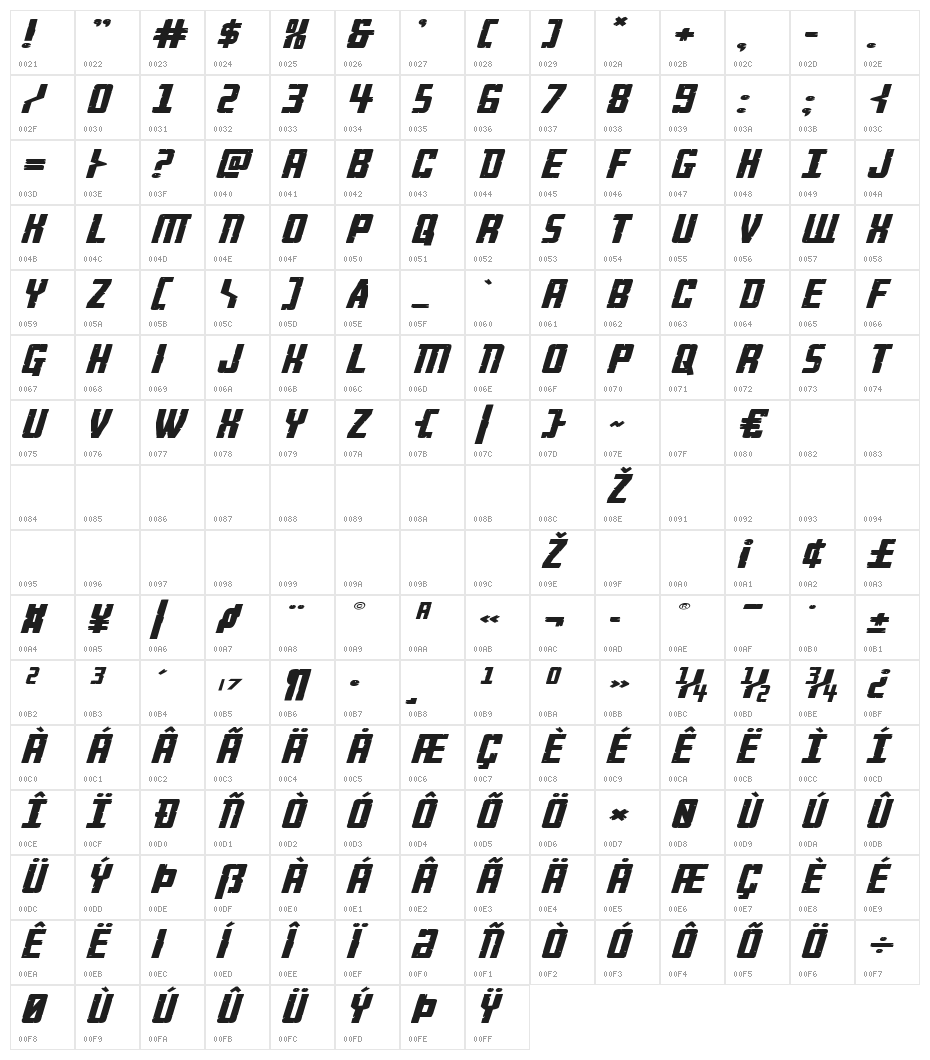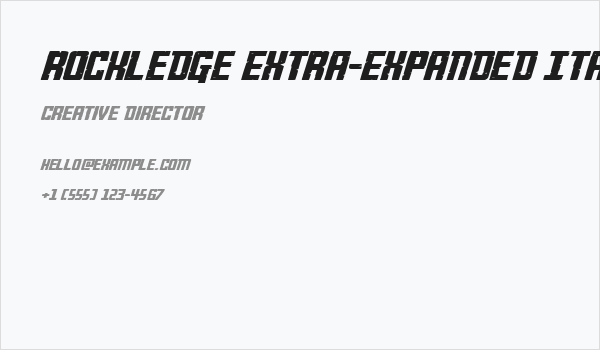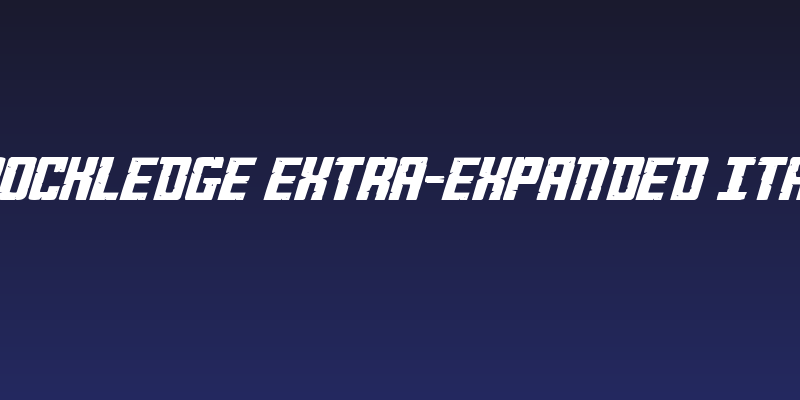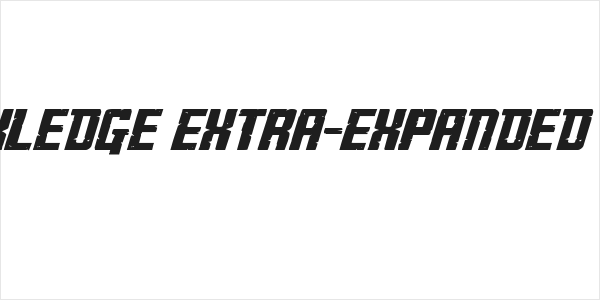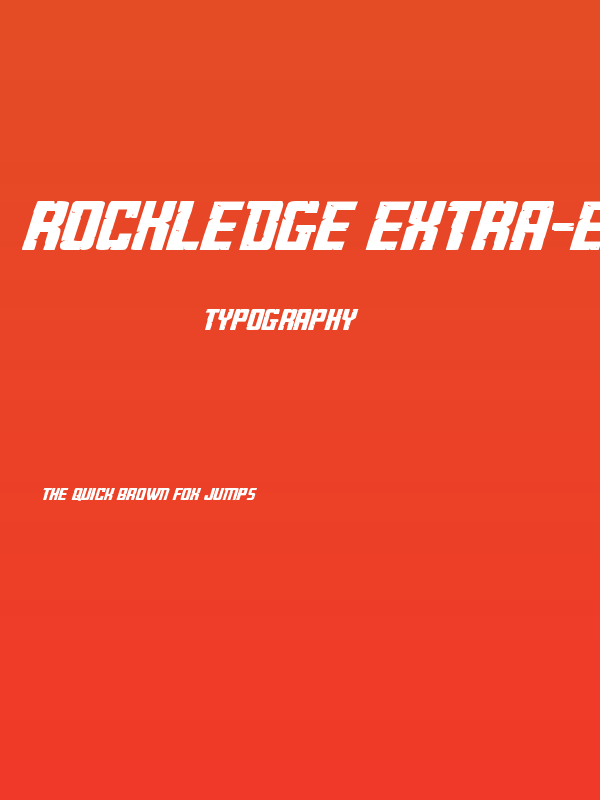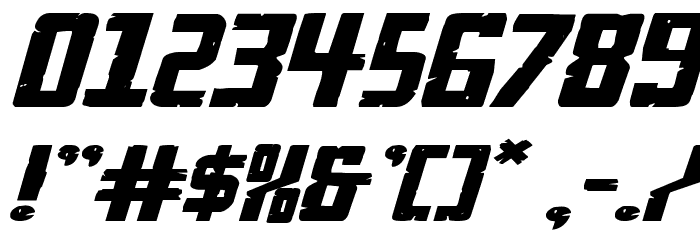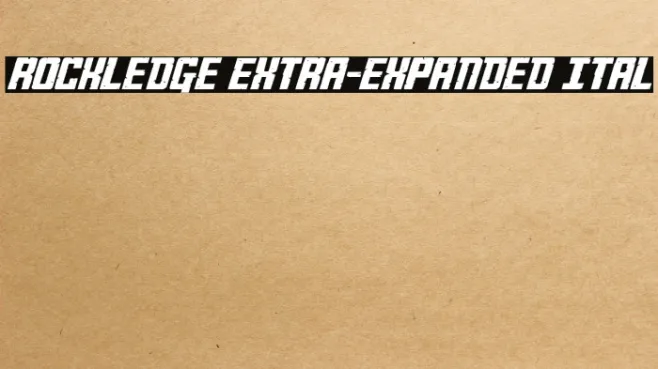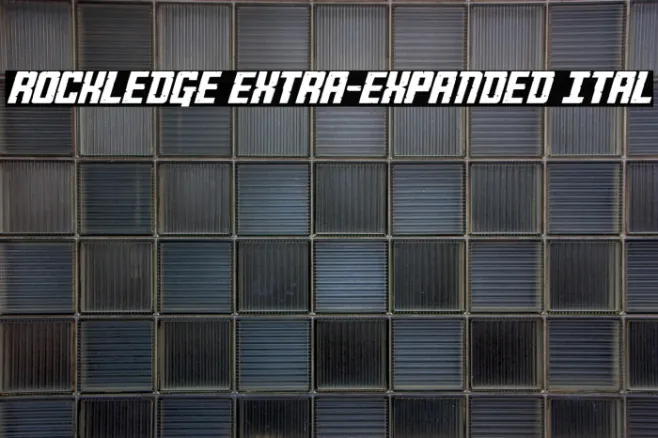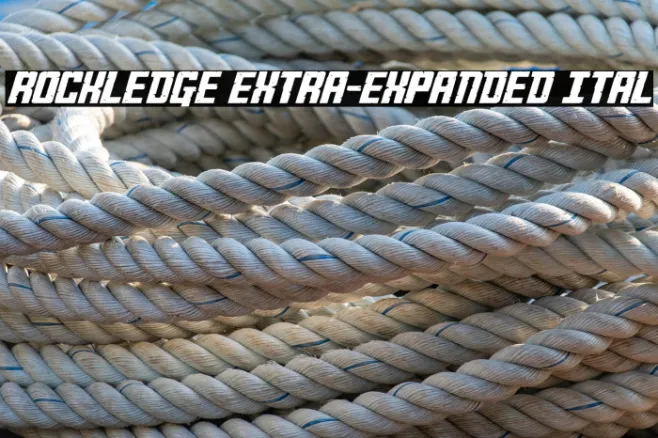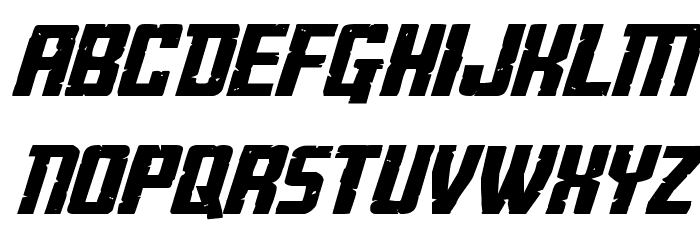
Rockledge Extra-Expanded Ital Font
Rockledge Extra-Expanded Ital Description
This font features a bold, extra-expanded style with a distinct italic slant, giving it a dynamic and energetic appearance. The characters are robust and heavily weighted, with a wide stance that enhances readability from a distance. The design incorporates a modern, industrial aesthetic with sharp angles and clean lines, making it suitable for impactful visual statements. The uppercase and lowercase letters maintain consistent proportions, while the numerals and special characters complement the overall boldness. The font's unique style is ideal for projects requiring a strong, assertive presence.